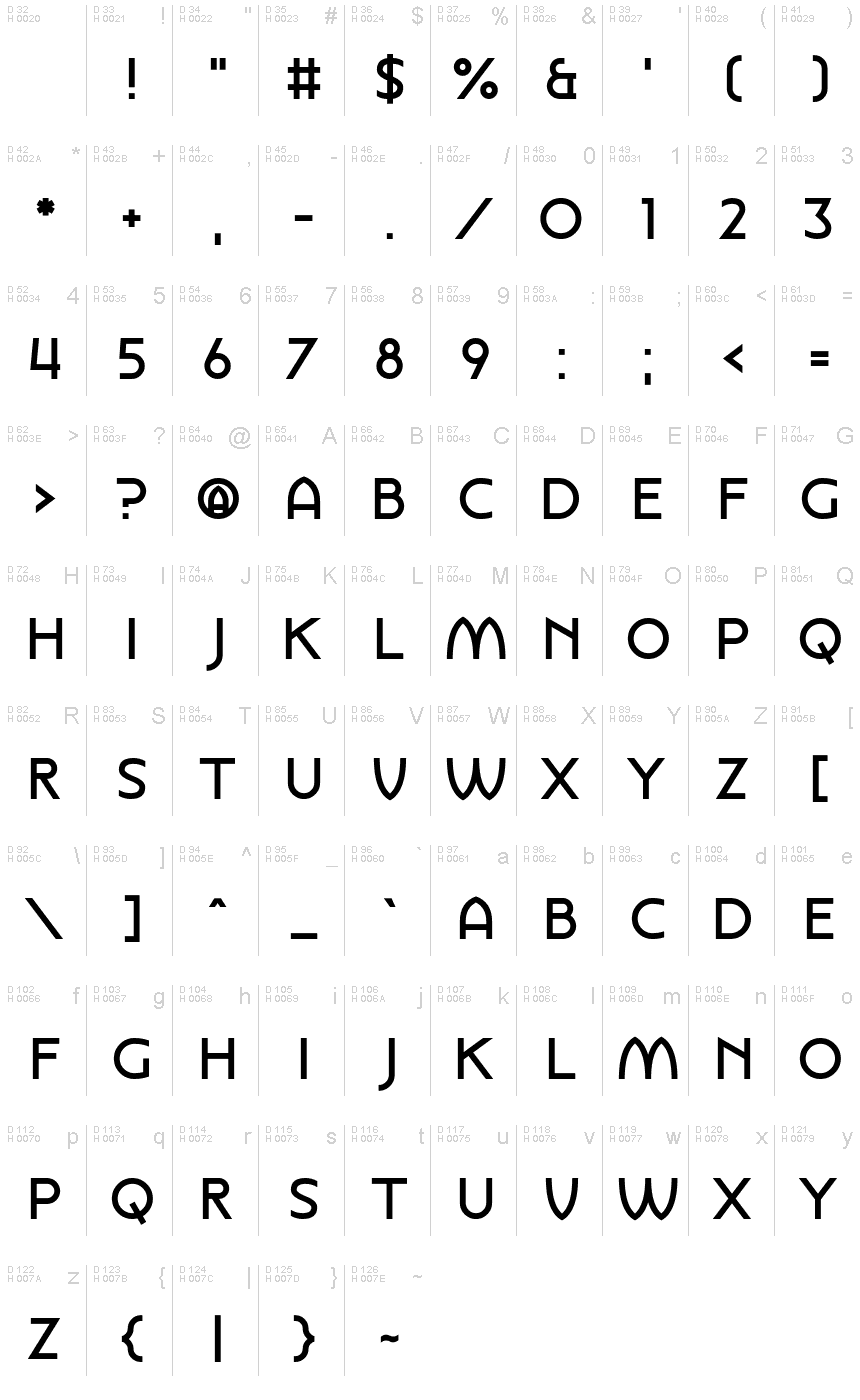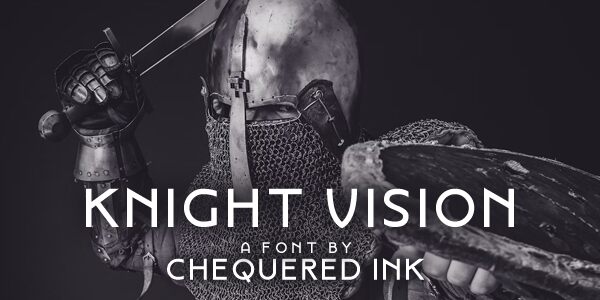
Knight Vision
Meet Knight Vision, the gothic sans serif font designed by Allison J James. This modern font style exudes a unique blend of elegance and darkness, making it perfect for projects that require a touch of drama. Its semi-light weight and semi-expanded width make it ideal for titles, headlines, logos, and branding materials that demand attention. From fashion magazines to horror movie posters, Knight Vision is versatile enough to enhance any design project with its edgy aesthetic. Get ready to captivate your audience with this bold typeface that delivers a message loud and clear!